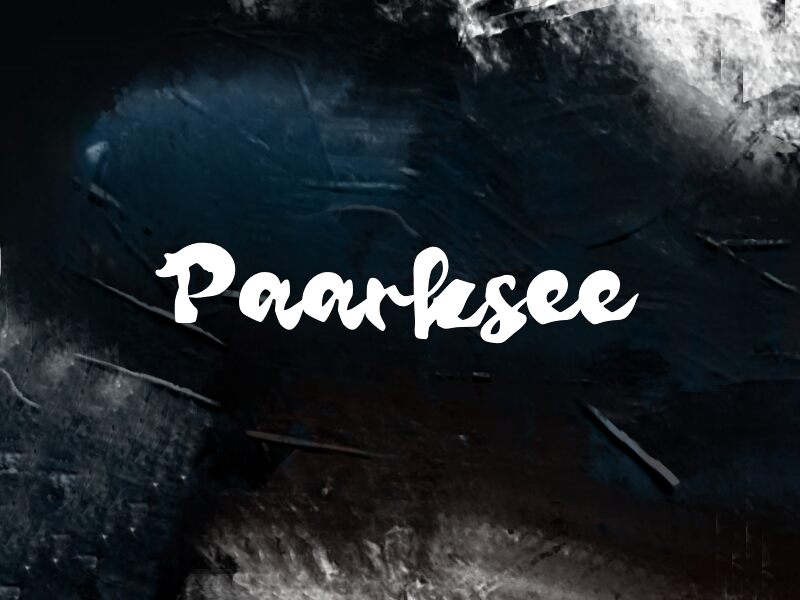
Paarksee font is a free brush font designed by wep with a modern style and artistic approach. The font is based on uniform thickness throughout its height, while breaks and milder rotations mark this typeface’s unique features. A great choice for rememberable graphics, Paarksee comes in a friendly and welcoming appearance mostly thanks to its smooth rounded corners.
Use Paarksee in logo design, app/web design, book covers, eco-friendly food brands, t-shirts, and more. The font works in both scannable and readable text so you get to use it in titles, paragraphs, or as a body text.
Paarksee is an exquisite free font that combines elegance and readability, making it perfect for a wide range of design projects. Whether you're creating stunning invitations, eye-catching posters, or engaging websites, Paarksee adds a unique touch to your work.
With its versatile character set, this font is ideal for both print and digital media. You can easily download Paarksee to enhance your creative projects without any cost. Enjoy the freedom to customize your designs with this stylish font, which captures attention and elevates your aesthetic.